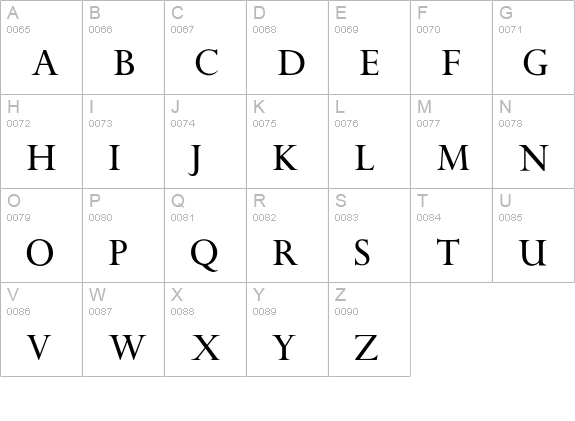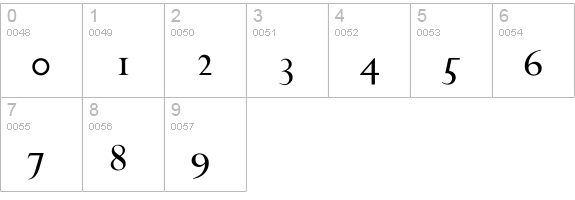
SaigonLight Font Details
SaigonLight font is a stunning display font that exudes elegance and sophistication. Its delicate and flowing strokes add a touch of grace to any design project. This font's unique style makes it perfect for creating eye-catching headlines, logos, and branding materials. With its thin and airy letterforms, SaigonLight font effortlessly combines modernity with a classic charm. Each character is meticulously crafted to ensure legibility and readability, even at smaller sizes. The font's versatility allows it to be used in a variety of design contexts, from advertising to editorial layouts. What sets SaigonLight font apart is not just its stunning aesthetics, but also its availability as a free download. FontsMarket.com offers this exceptional font for free, allowing designers and creatives to add it to their font library without any cost. This generosity allows for wider accessibility and encourages creativity to flow freely. Whether you are a professional designer looking to enhance your typographic arsenal or a beginner exploring the world of fonts, SaigonLight font is a must-have. Its beauty and accessibility make it an ideal choice for any design project. Download SaigonLight font for free at FontsMarket.com and elevate your designs to new heights.